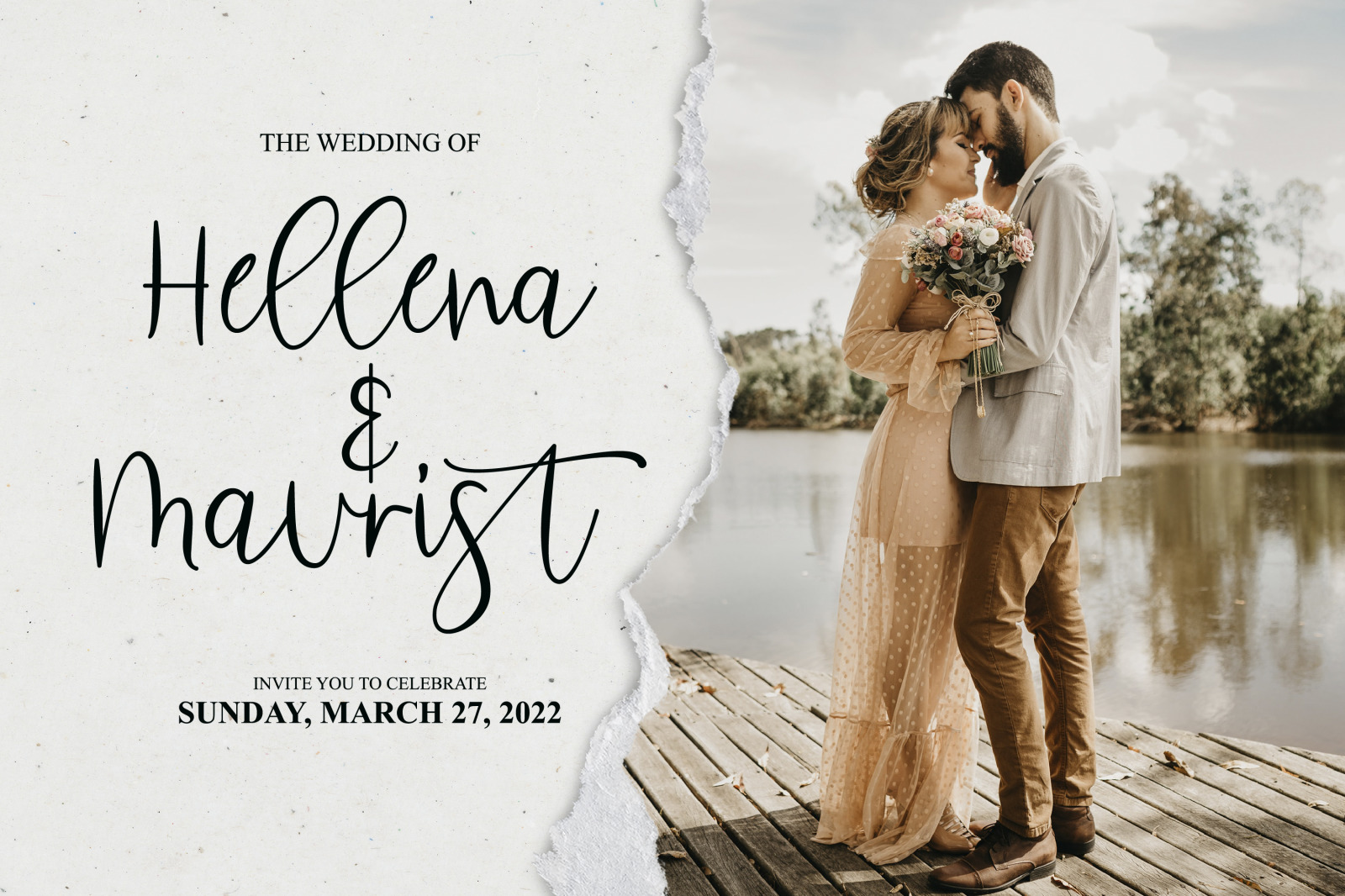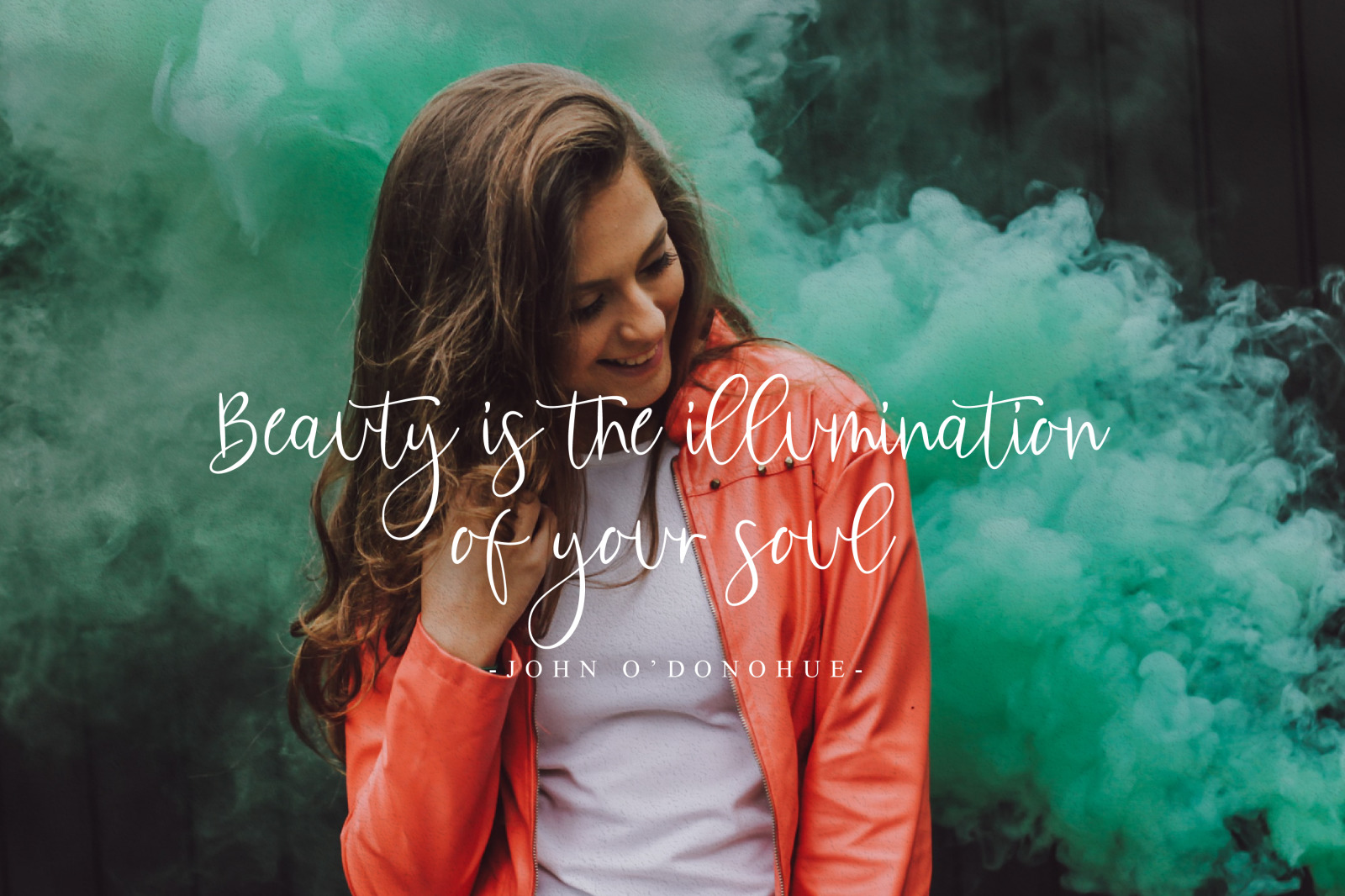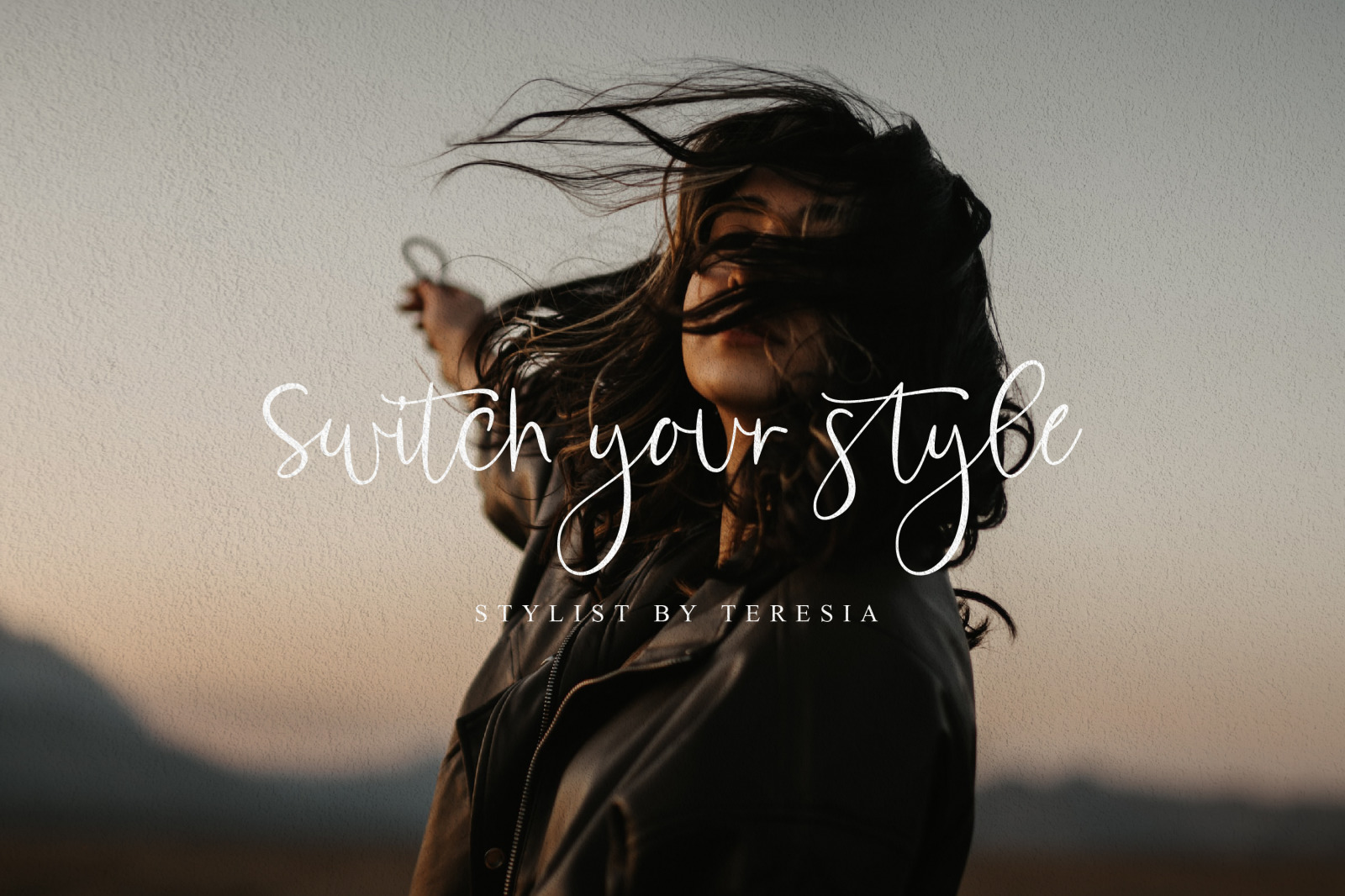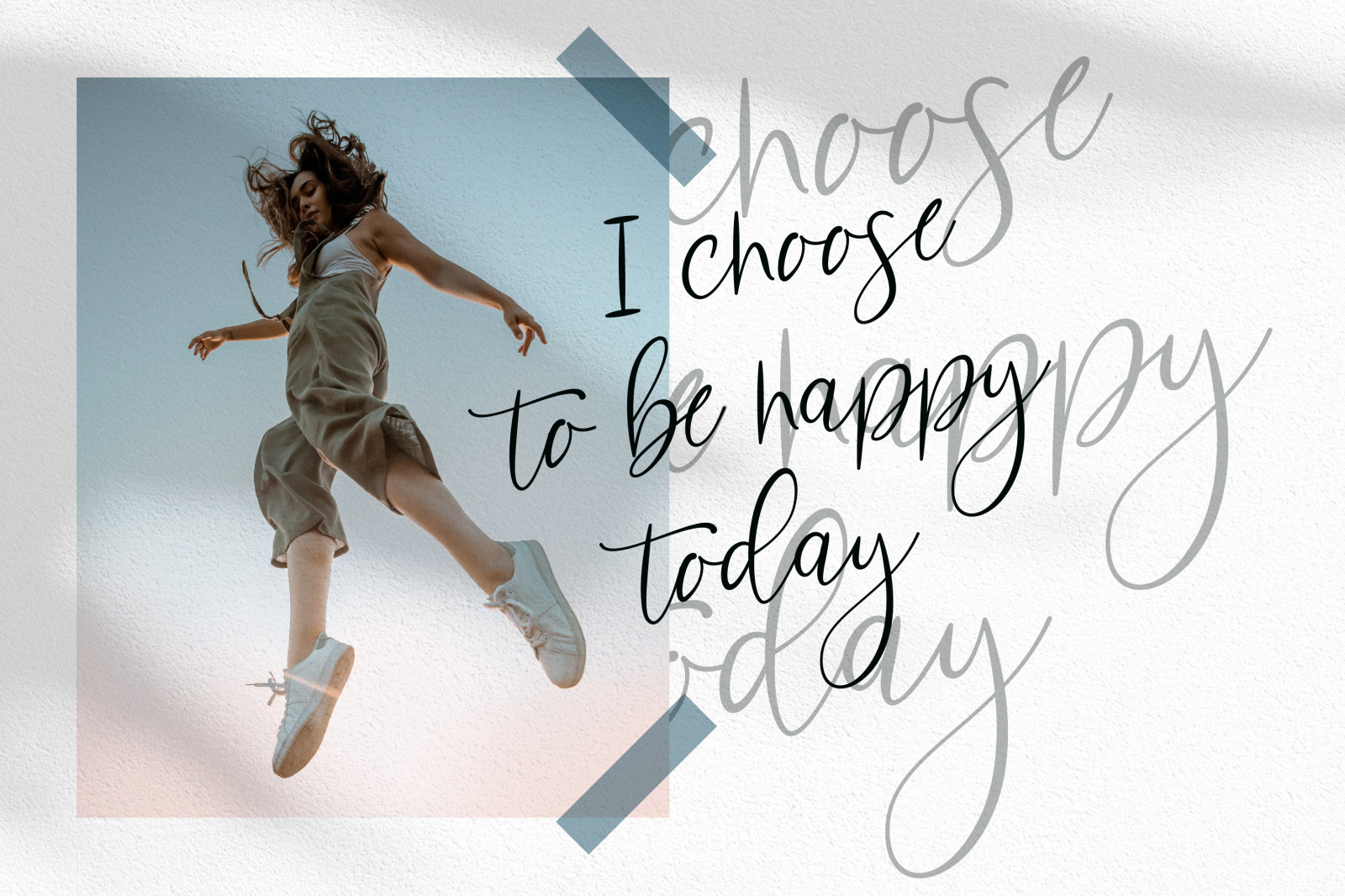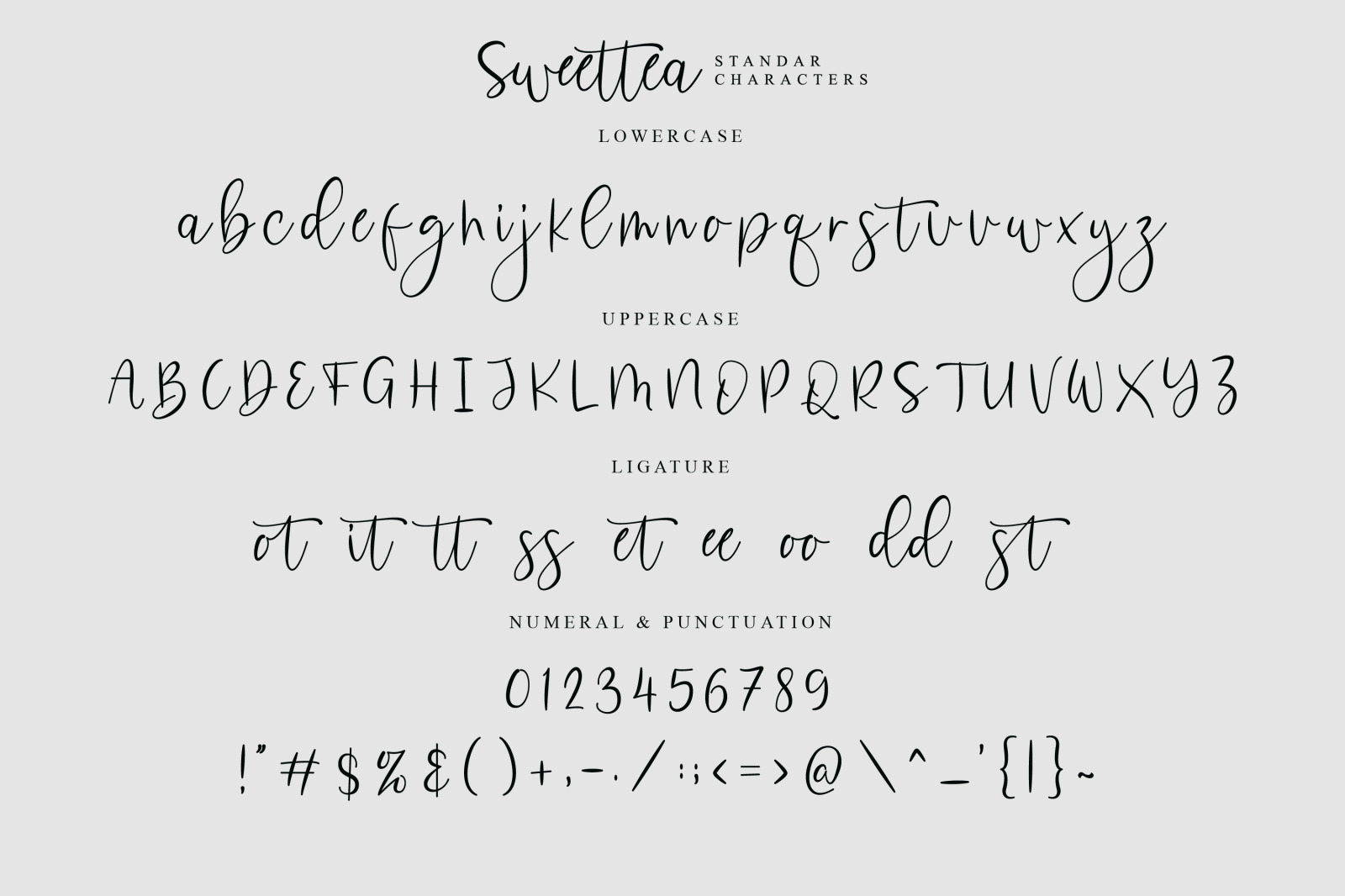
Sweettea - Signature Script Font
Sweettea is a Signature Script Font with a modern calligraphy feel.
Sweettea is perfect for branding projects, logos, wedding designs, social media posts, advertisements, product packaging, product designs, labels, photography, watermarks, invitations, stationery, and any project that requires a sense of handwritten-signature and more!.